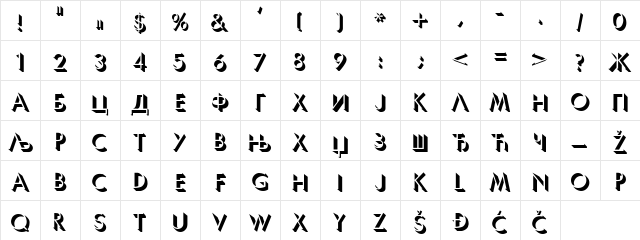
C_Umbra Normal Free Font
C_Umbra Normal
Design Context for C_Umbra
C_Umbra is a composed and adaptable typeface that performs quietly and consistently across a wide range of design contexts.